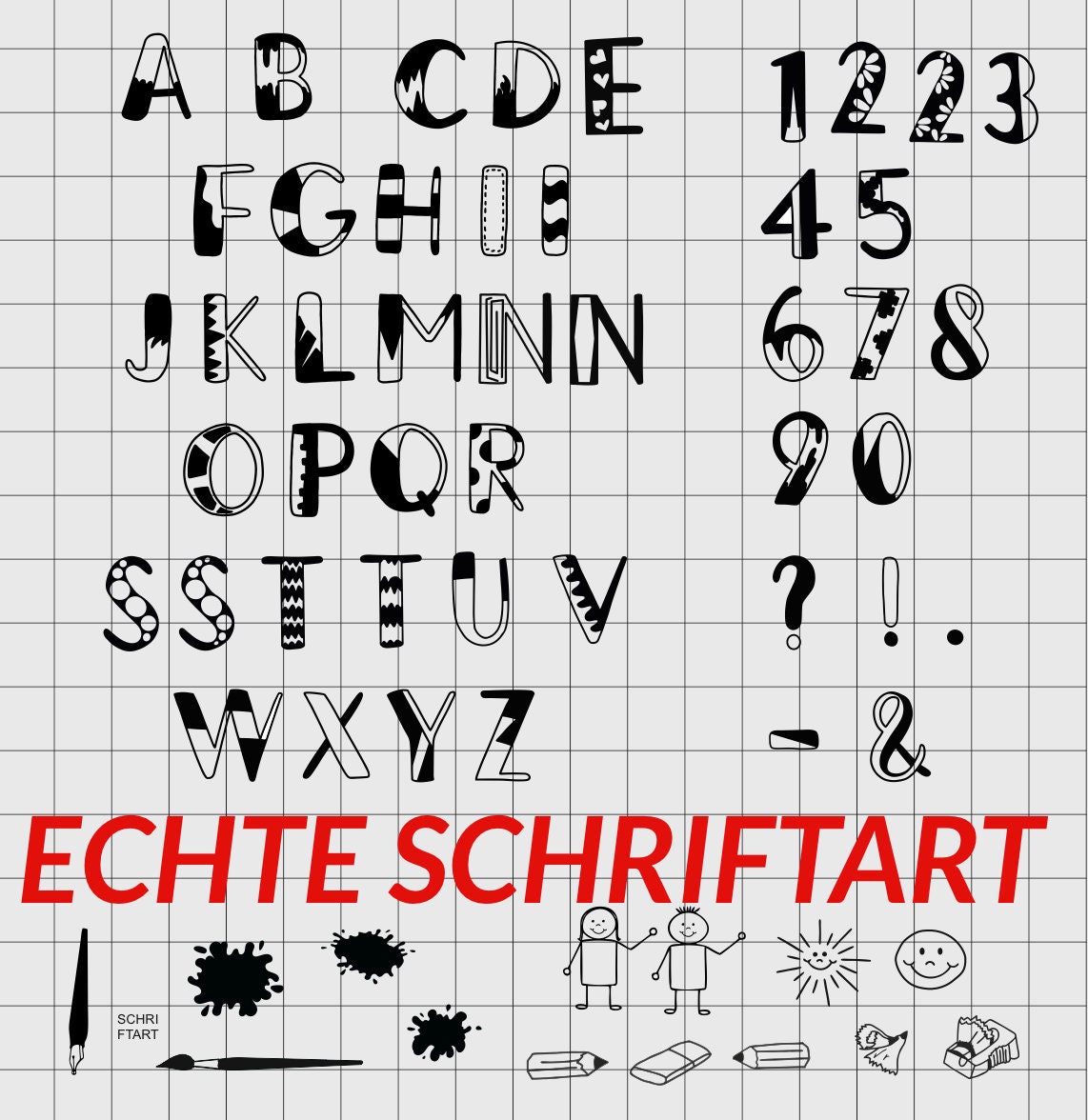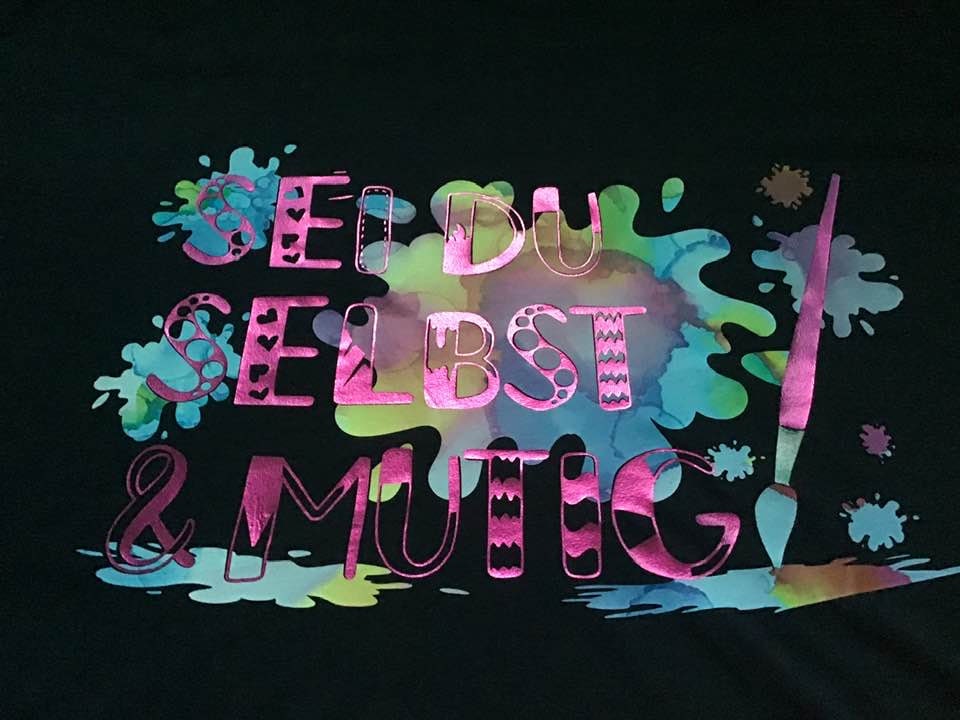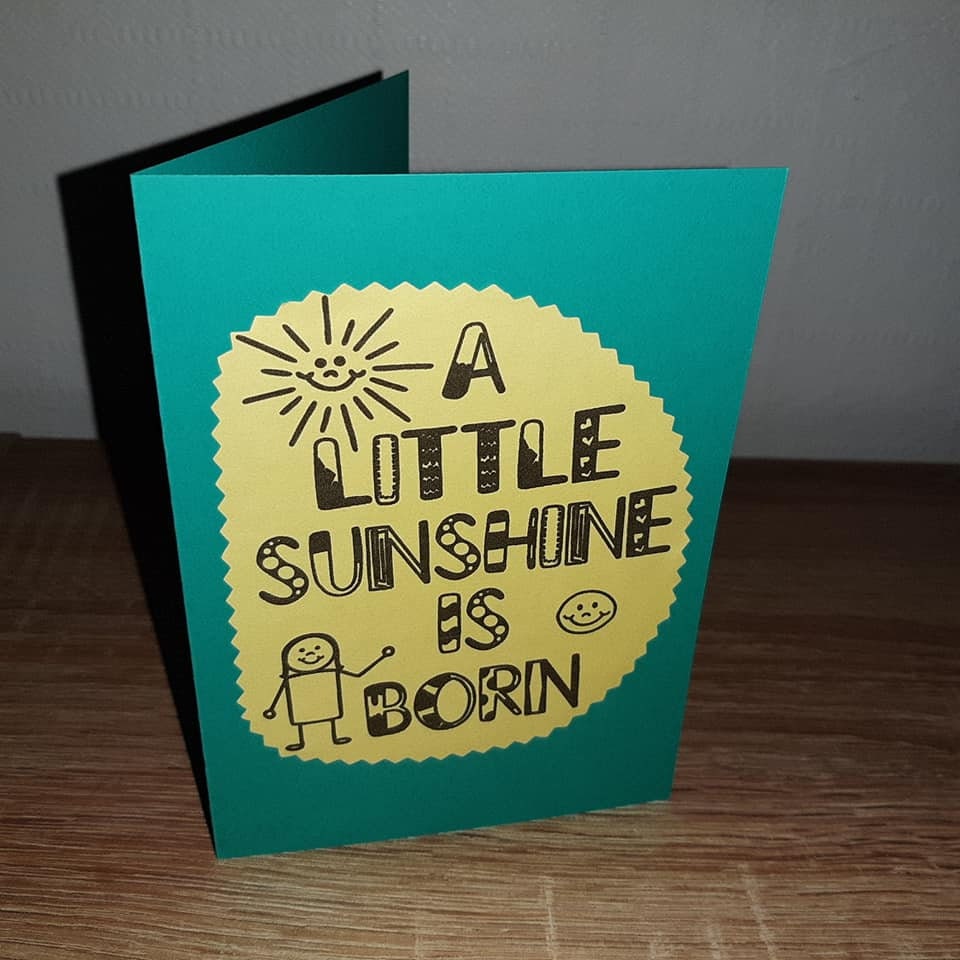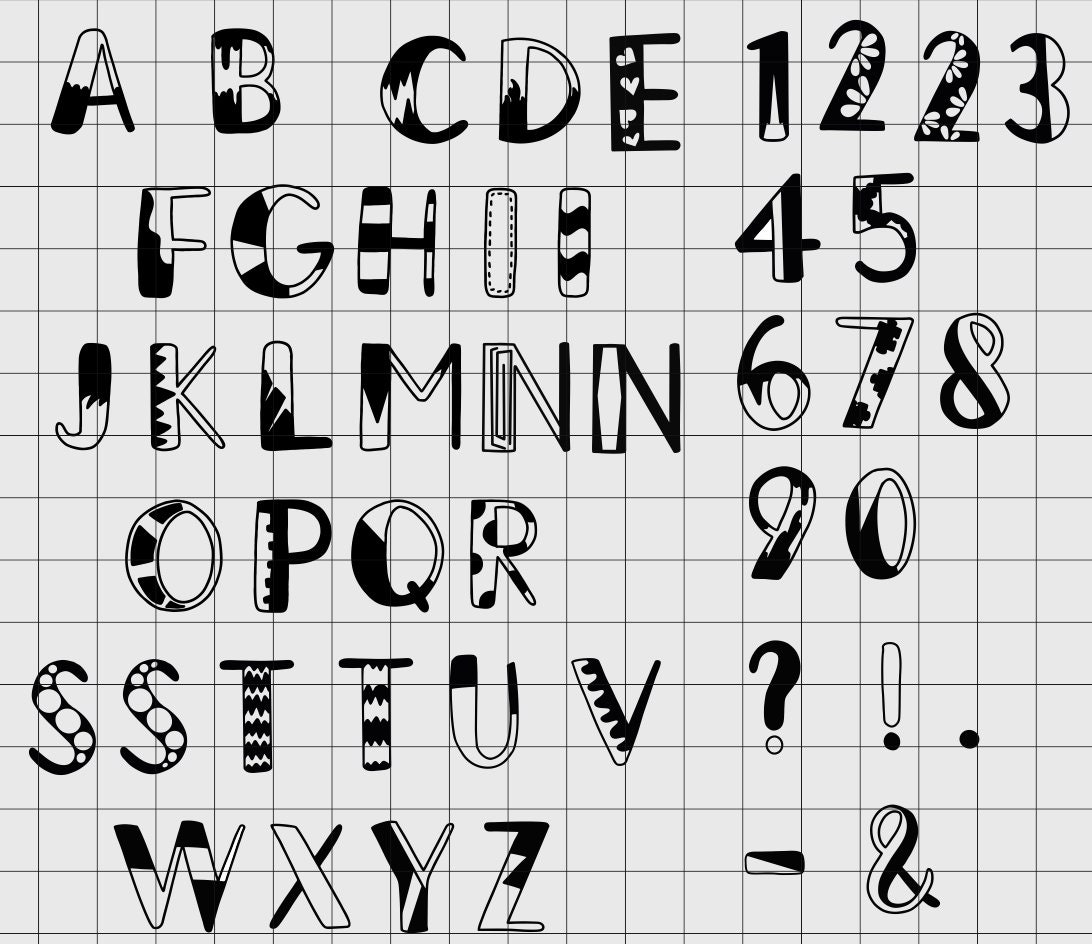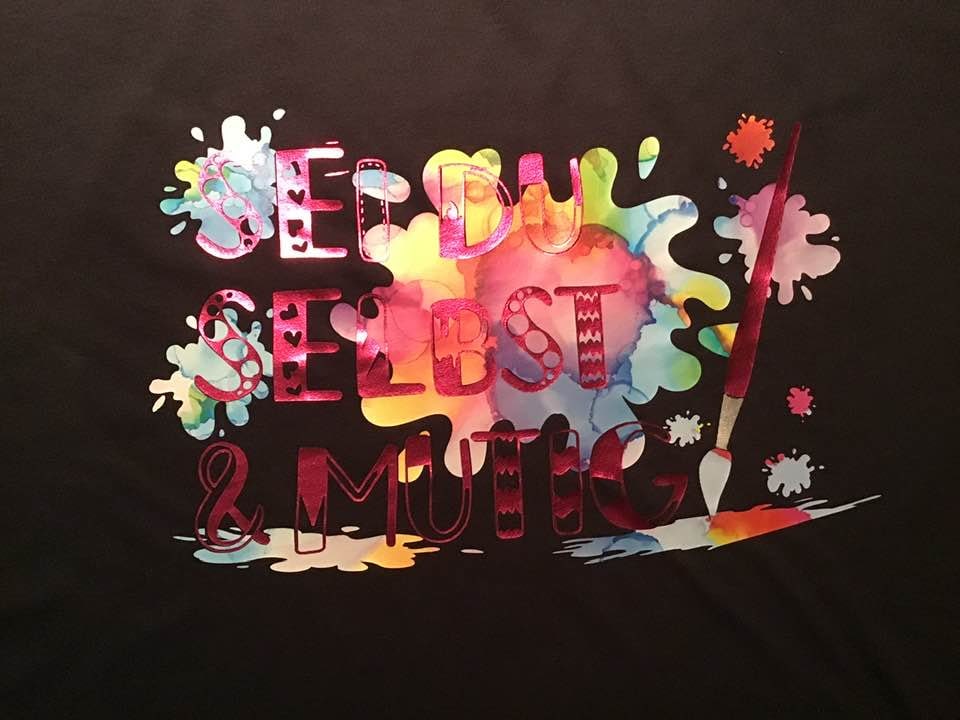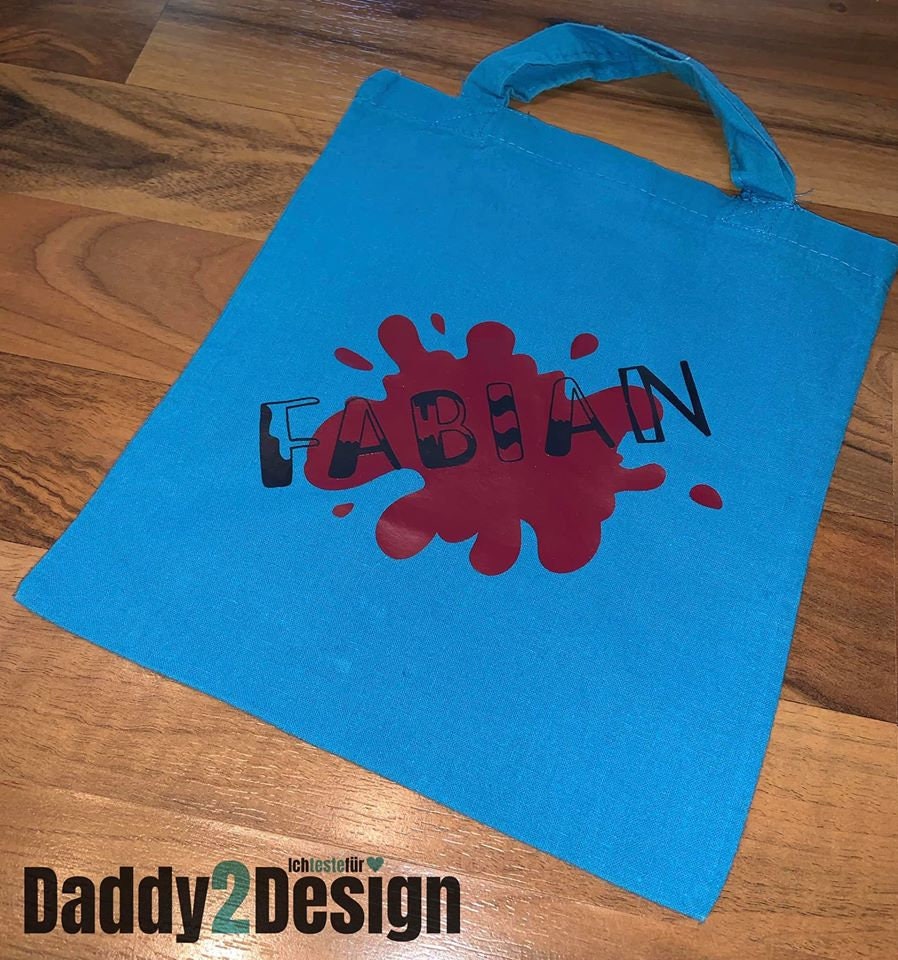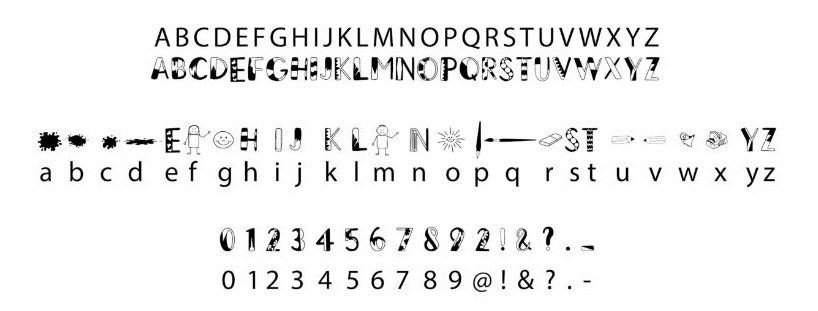
Here you get the REAL DEKO font
Capital letters / special characters in black white
Decoration elements for the Kids Edition in monochrome
Decoration! create a universal ABC for yourself